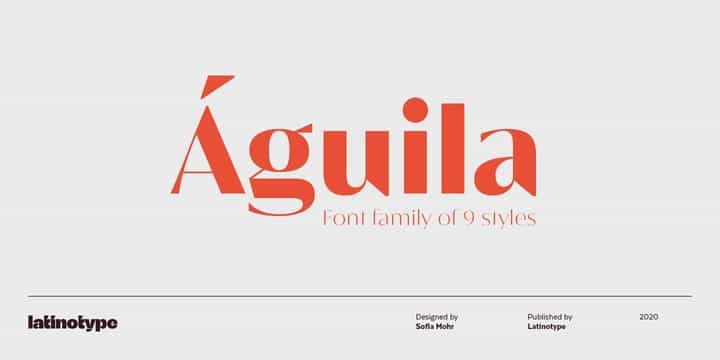
Aguila font was designed and distributed by Latinotype in both its classic and contemporary variants, creating and disseminating this font that features straight lines with curvatures and triangular shapes like Didone typefaces as well as semi serifs to give its appearance an unique appearance.